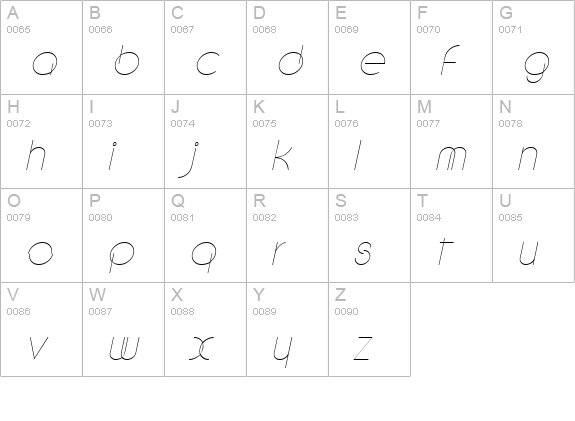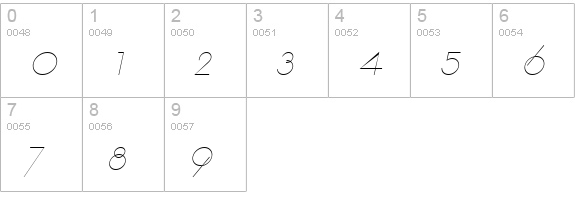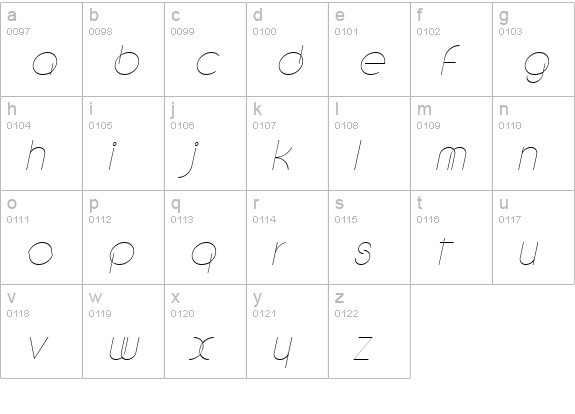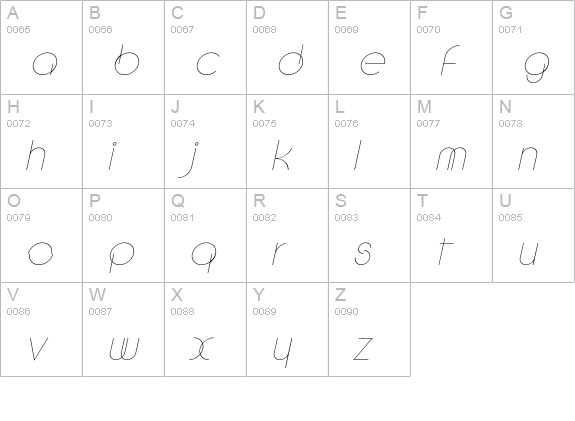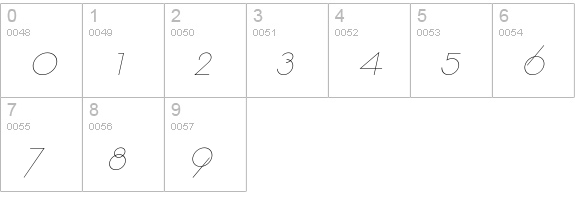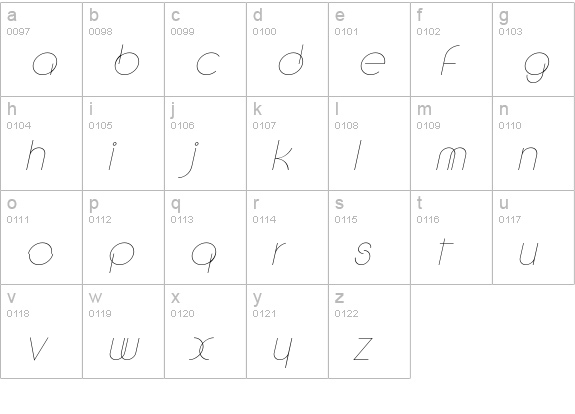
DebevicCircular Italic Font Details
DebevicCircular Italic is a distinctive, italic variant in the DebevicCircular typeface family \xE2\x80\x94 well suited to design and typography projects.
Introducing DebevicCircular Italic font, a sleek and modern typeface that adds a touch of elegance to any design project. Its unique circular design gives it a contemporary and sophisticated look, perfect for branding, packaging, and editorial design. This font is available for free download at FontsMarket.com, making it easily accessible for designers and creatives looking to enhance their work with a stylish and versatile typeface. Whether you're working on a website, poster, or logo, DebevicCircular Italic font will elevate your design with its clean lines and subtle curves. With its italic style, DebevicCircular adds a dynamic and fluid element to your text, creating visual interest and drawing the eye to key elements of your design. This font is a must-have for anyone looking to make a statement with their typography while maintaining a sense of sophistication and professionalism. Download DebevicCircular Italic font today from FontsMarket.com and elevate your design projects with this free and stylish typeface that is sure to make a lasting impression.